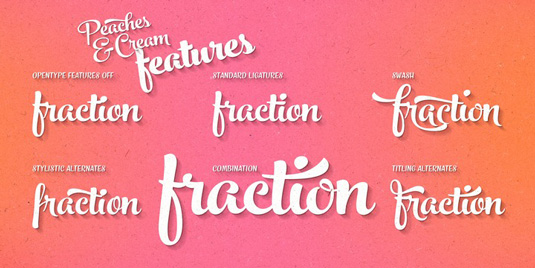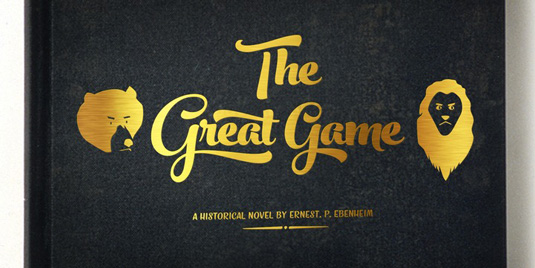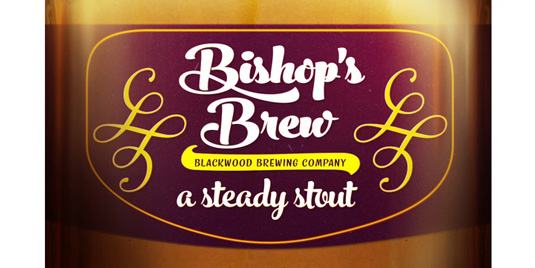
Font of the day: Peaches And Cream
Peaches & Cream by Emil Karl Bertell
This bold, brush-style script font was created by Finnish type designer and illustrator Emil Karl Bertell. Available from MyFonts, Peaches & Cream is described as being "an effective font for creating ambitious headlines, logos and posters with a custom-made feeling".